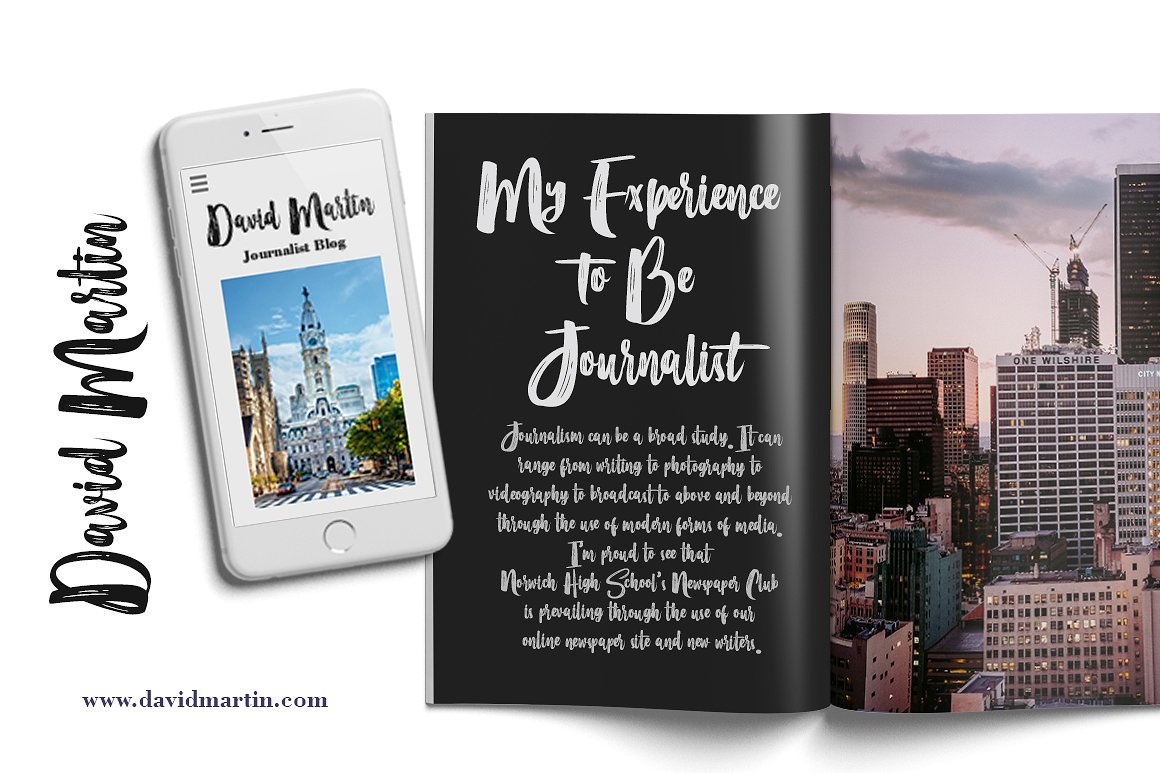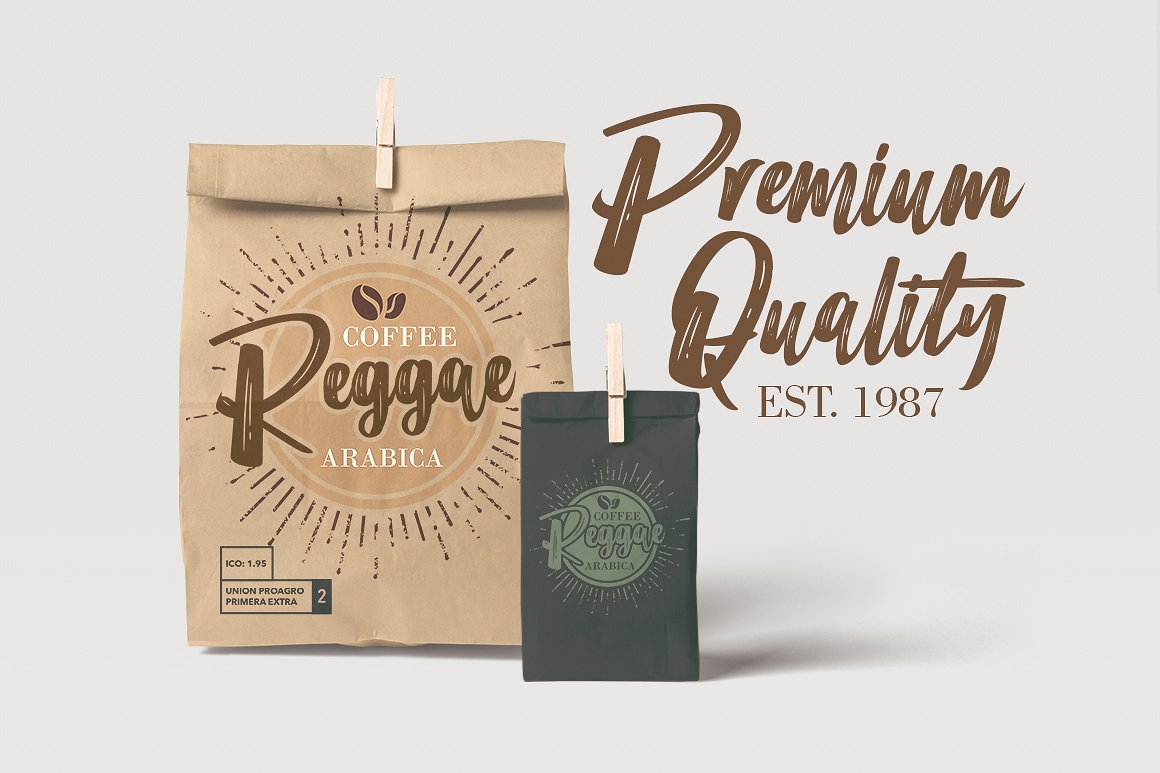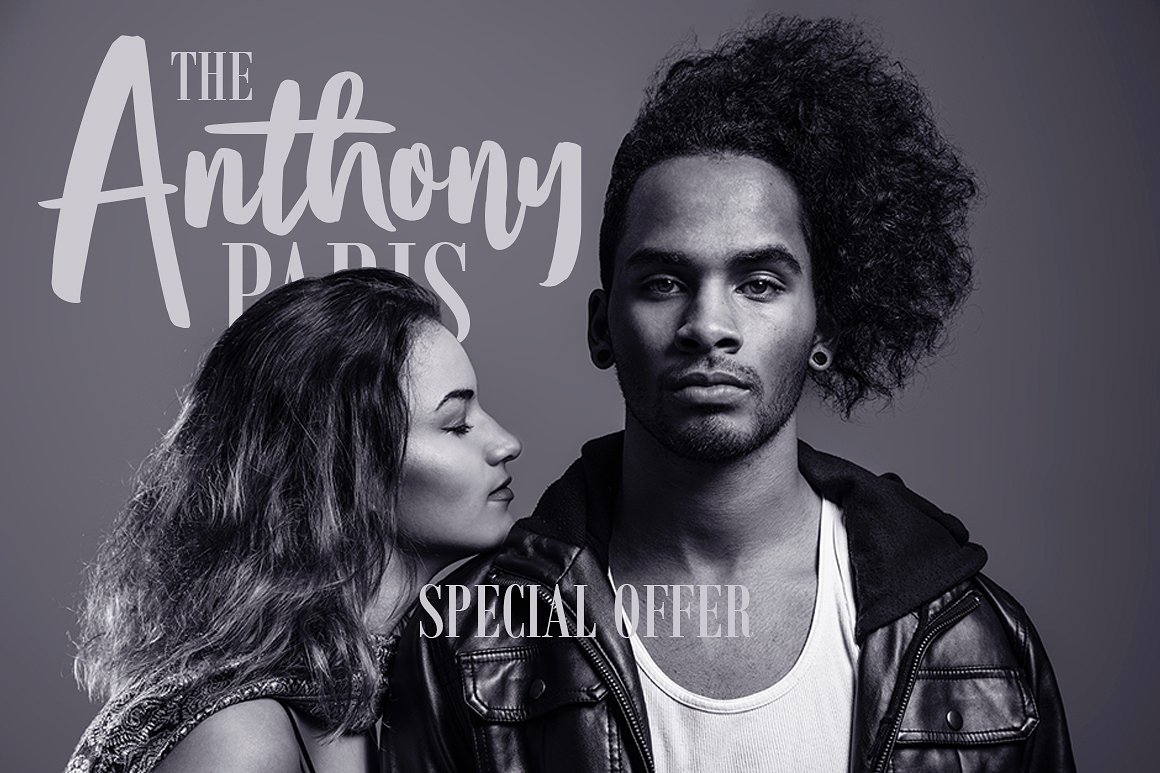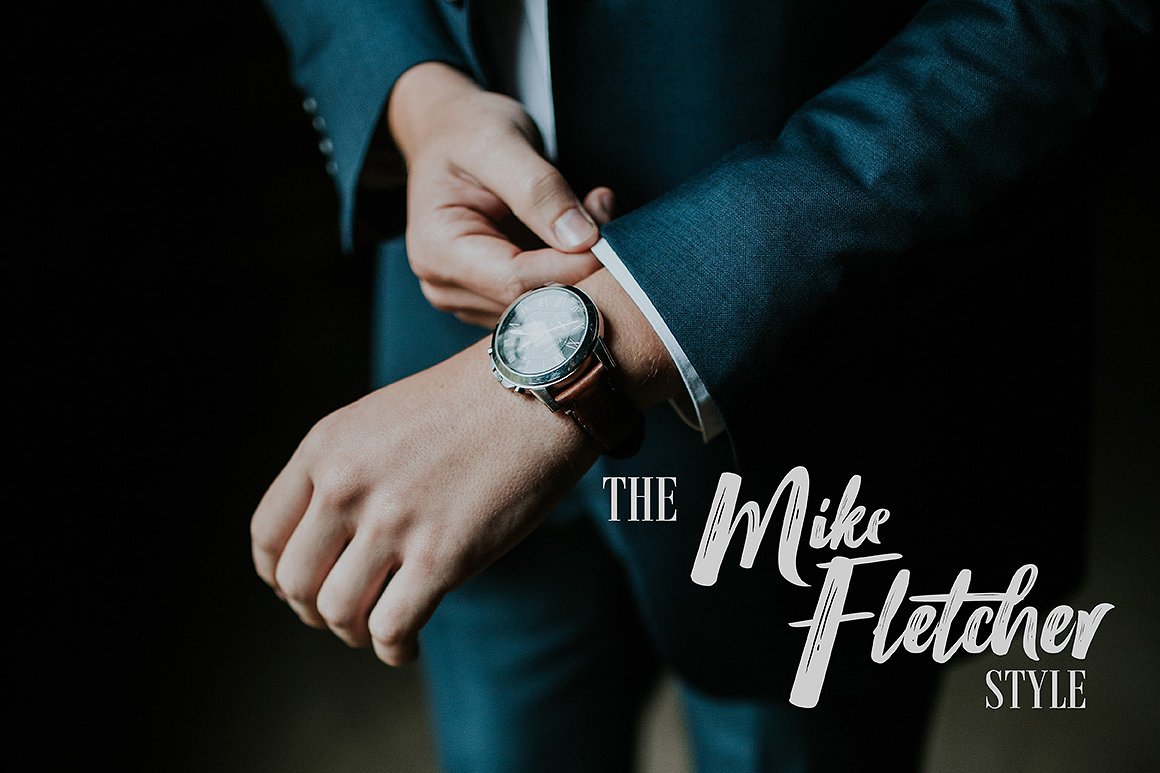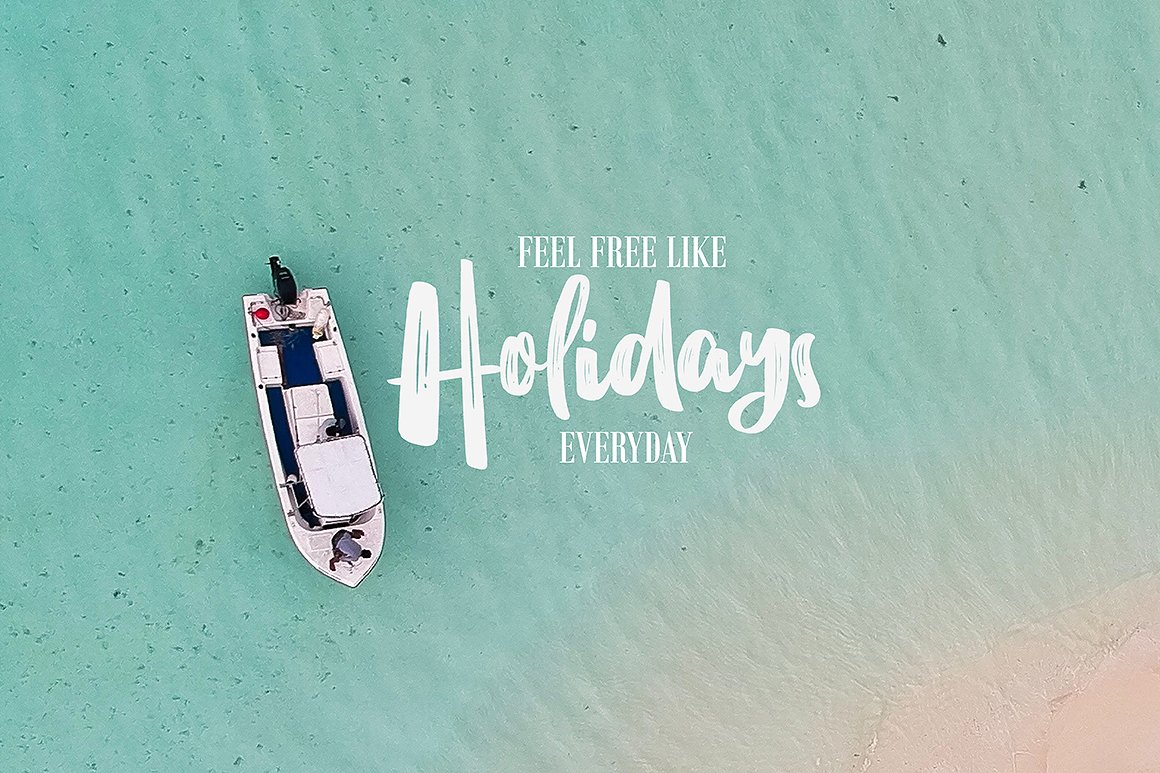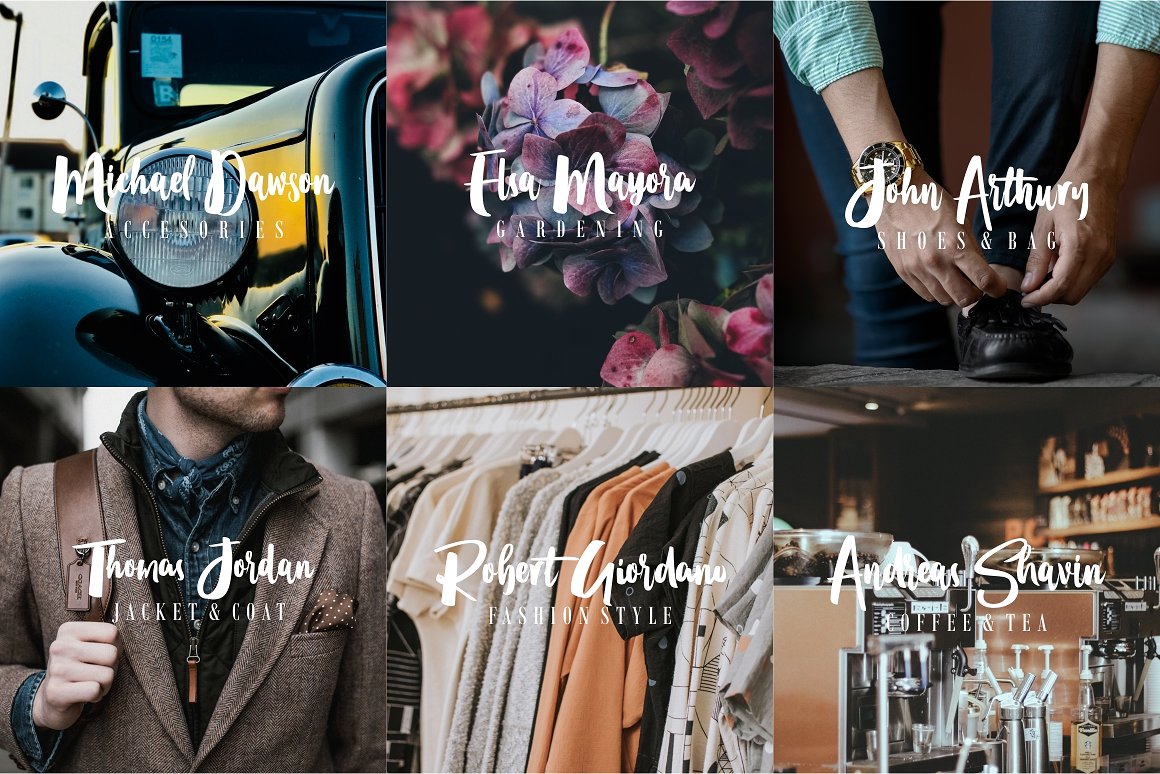
Introduction to Merci Heart Font
Have you ever found yourself staring at a blank canvas, trying to come up with the perfect font to match your creative vision? This is a moment many designers can relate to. As you search for the perfect typography, you might stumble upon a treasure trove of beautiful fonts, but only a few will truly capture the essence of your design. One such gem is the Merci Heart Font, a gorgeous brush font designed to meet your needs.
This high-quality font is perfect for projects that require a natural, brush feel, and with its free download option, you can get started right away. Whether you’re working on a creative project that demands attention to detail or need a versatile design resource for your next big idea, Merci Heart Font is an excellent choice.
Key Features of Merci Heart Font
- Unique, hand-drawn design with a heart motif, making it perfect for Valentine’s Day or love-themed designs.
- Transparent background, allowing for easy customization and integration with various design elements.
- Includes multiple font styles and weights, providing flexibility for different design applications.
- High-resolution design, suitable for print and digital applications, including social media graphics, posters, and more.
Honest Review: Merci Heart Font
I recently had the chance to play around with the Merci Heart Font, and I must say it’s a lovely addition to any creative project. This free download is a high-quality design resource that can add a personal touch to your designs.
One of the things that works well is the transparent background, which makes it easy to use in various design scenarios. The font itself is a beautiful, handwritten script that can add a touch of elegance to any text.
- ✨ Beautiful, handwritten script
However, there are a few limitations to keep in mind. The font may not be suitable for all types of designs, and it’s not a fully-fledged font family. Additionally, some users may find the font a bit too cursive for their taste.
- ⚠️ Not a fully-fledged font family
- ⚠️ Some users may find it too cursive
Overall, I’m quite impressed with the Merci Heart Font. It’s a great design resource that can add a personal touch to your creative projects. If you’re looking for a beautiful, handwritten script, this font is definitely worth checking out.
The Merci Heart Font is perfect for a variety of creative projects, including wedding invitations, birthday cards, and social media graphics. Its elegant and sophisticated design makes it a great choice for any project where you want to add a touch of elegance and sophistication.